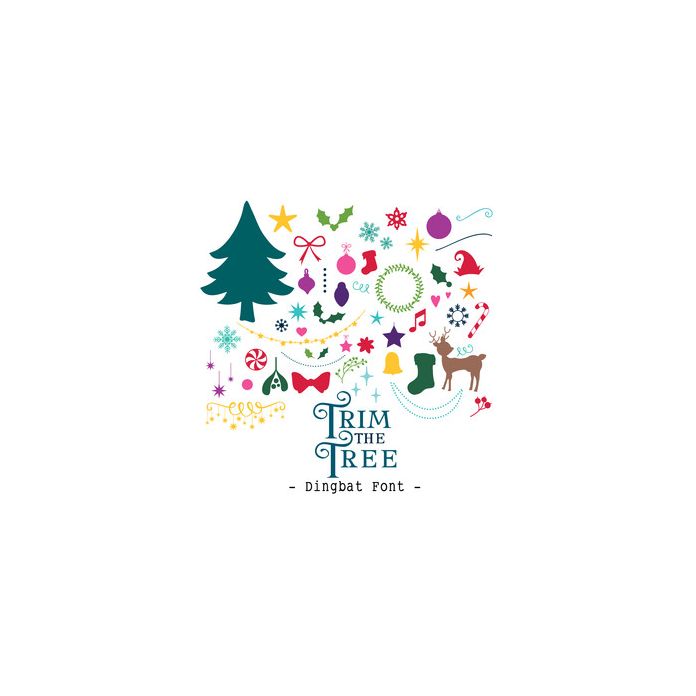
Trim the Tree Dingbat Font. Includes Christmas tree base and 51 decorative elements to trim the tree or use as embellishments, perfect for card making sentiments, inserts, scrapbooking, gifts and more!. All are assigned to an upper case or lower case letter starting with 'A' or can be accessed via glyphs. Can be used with my Baubles font here in the Silhouette store! For more design ideas, coordinating designs & products and inspiration, please visit my blog http://www.sarahhurleyblog.com